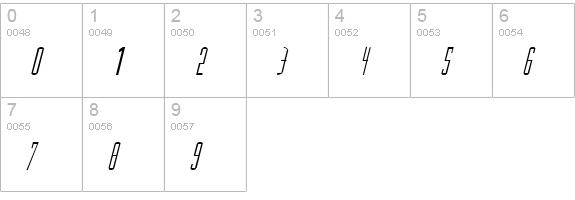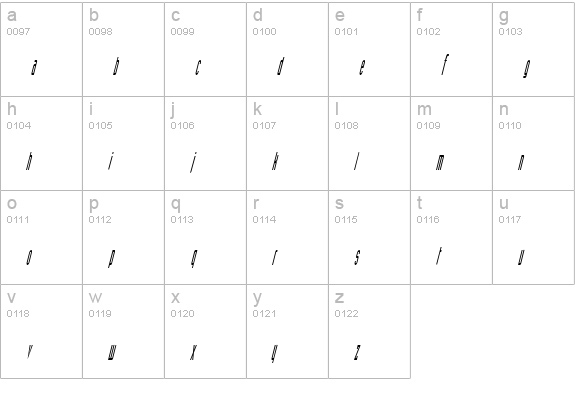
Splain Italic Font Details
Splain Italic is a distinctive, italic variant in the Splain typeface family \xE2\x80\x94 well suited to design and typography projects.
Splain Italic font is a stunning and captivating typeface that effortlessly combines elegance with a touch of playfulness. Its sleek and curvaceous letterforms exude a sense of sophistication, making it perfect for a wide range of design projects. This font's italic style adds a sense of dynamism and movement, making it ideal for conveying a sense of excitement and energy in your designs. Whether you're creating eye-catching headlines, stylish logos, or artistic compositions, Splain Italic font will surely make your creations stand out from the crowd. One of the most remarkable aspects of Splain Italic font is that it is available for free. Yes, you read that right! This remarkable typeface can be freely downloaded at FontsMarket.com, allowing designers and typographers to unlock their creativity without any financial constraints. With its seamless legibility and versatile nature, Splain Italic font is incredibly adaptable to various design contexts. From print materials such as magazines, brochures, and posters to digital platforms like websites and social media graphics, this font lends an air of sophistication to any project it graces. The smooth, flowing curves of Splain Italic font create a harmonious rhythm that draws the reader's eye effortlessly across the page. Its graceful strokes and balanced proportions make it a pleasure to read, ensuring that your message is communicated effectively and effortlessly. Whether you're a professional designer or an amateur enthusiast, Splain Italic font is a must-have addition to your font library. Its versatility, elegance, and the fact that it can be freely obtained from FontsMarket.com make it an invaluable resource for any creative project. So go ahead, unleash your creativity, and let Splain Italic font elevate your designs to new heights.